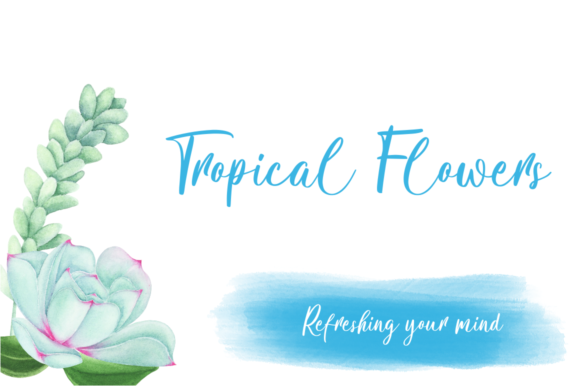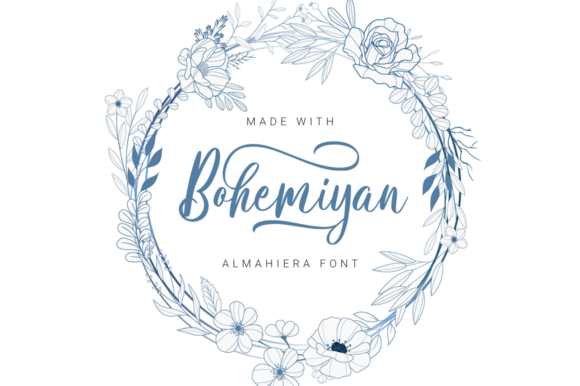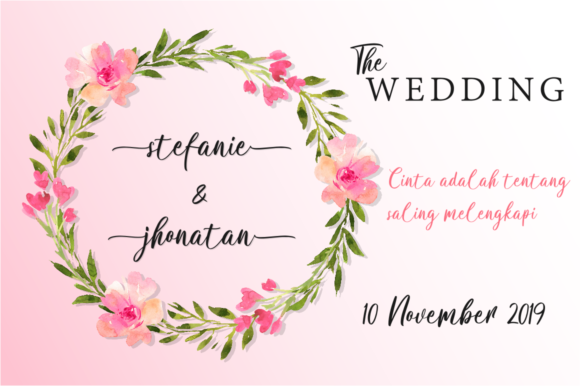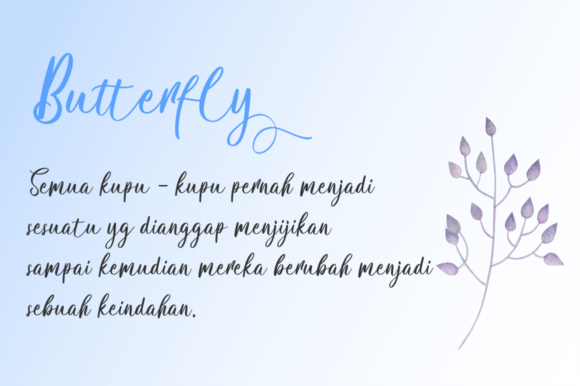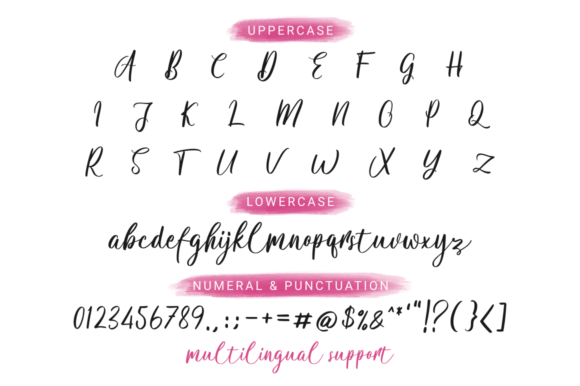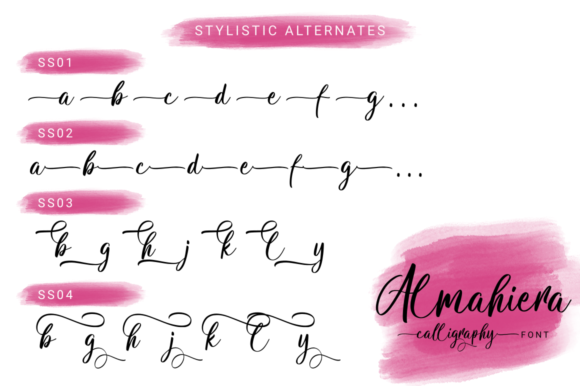
Discover the Timeless Charm of Almahiera Font
Have you ever found yourself sitting in front of a blank canvas, struggling to bring your creative vision to life? You’ve poured over design inspiration, brainstormed ideas, and yet, nothing seems to capture the essence of what you’re trying to create. This is where the magic of typography comes in – the right font can make all the difference.
Meet Almahiera Font, a one-of-a-kind crafting font designed to effortlessly add a charming feel to any design project. Whether you’re working on a wedding invitation, a children’s book, or a branding campaign, Almahiera Font is the perfect companion to bring your designs to life. Its unique character and versatility make it an invaluable asset for designers looking to add a touch of whimsy and sophistication to their work.
Almahiera Font Key Features
- Font Style: Script, Calligraphy
- Unique Characteristics: Elegant, cursive script with intricate details and subtle flair, ideal for invitations, wedding stationery, and other special occasions
- Language Support: Supports Latin-based languages, including English, Spanish, French, and many more
Almahiera Font Review
Overall, I think the Almahiera font is quite beautiful and elegant. Its ✨ unique blend of calligraphy and modern elements gives it a distinctive look that can add a touch of sophistication to any design project. The font’s ✨ refined curves and lines make it perfect for creating a sense of luxury and high-end style.
- ✨ Elegant and refined design
- ✨ Perfect for high-end and luxury branding
- ✨ Beautiful calligraphy-inspired details
However, there are a few limitations to consider. The font’s ✨ complexity can make it difficult to read at smaller sizes, and the weight range is a bit limited. Additionally, the font’s ✨ unique design may not be suitable for all types of projects, such as body text or simple logos.
- ⚠️ Can be difficult to read at smaller sizes
- ⚠️ Limited weight range
- ⚠️ May not be suitable for all types of projects
Overall, I would recommend the Almahiera font for projects that require a touch of luxury and sophistication. However, it’s essential to consider the limitations and use it judiciously to avoid any potential issues.
Tips for Getting the Most Out of Almahiera Font
Use Almahiera font to create elegant and sophisticated designs. It’s ideal for wedding invitations, luxury branding, and high-end marketing materials. Experiment with different font sizes, colors, and styles to create a unique look.
Use Almahiera font for:
- Luxury branding and marketing materials
- High-end packaging and labeling
- Formal event invitations and announcements
Alternatives to Almahiera Font for Designers
1. Carolyna Pro Font
Carolyna Pro Font is a modern script font that offers a mix of elegance and sophistication. It’s ideal for creating beautiful headings, titles, and quotes. When to use: Wedding invitations, luxury branding, and high-end marketing materials.
Comparison: Carolyna Pro Font is more modern and sleek compared to Almahiera Font’s vintage vibe. While Almahiera has a more classic feel, Carolyna Pro is perfect for designers who want to create a contemporary look.
Alex Brush Font is a beautiful, handwritten script font that exudes warmth and personality. It’s perfect for creating friendly and approachable designs. When to use: Blog posts, social media graphics, and casual marketing materials.
Comparison: Alex Brush Font is more casual and relaxed compared to Almahiera Font’s more formal tone. While Almahiera is great for luxury brands, Alex Brush is ideal for designers who want to create a friendly and approachable atmosphere.
3. Ostrich Sans Font
Ostrich Sans Font is a modern sans-serif font that offers a clean and minimalist look. It’s ideal for creating bold and eye-catching designs. When to use: Tech branding, sports marketing, and high-energy campaigns.